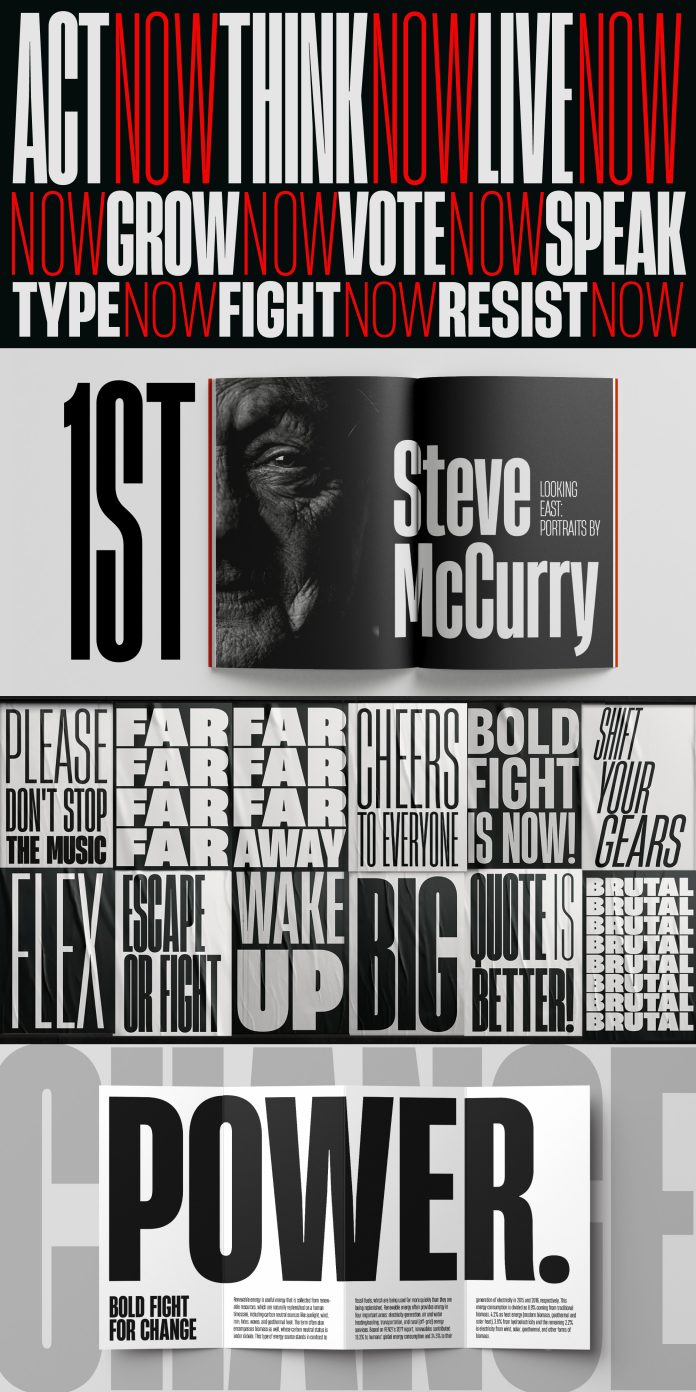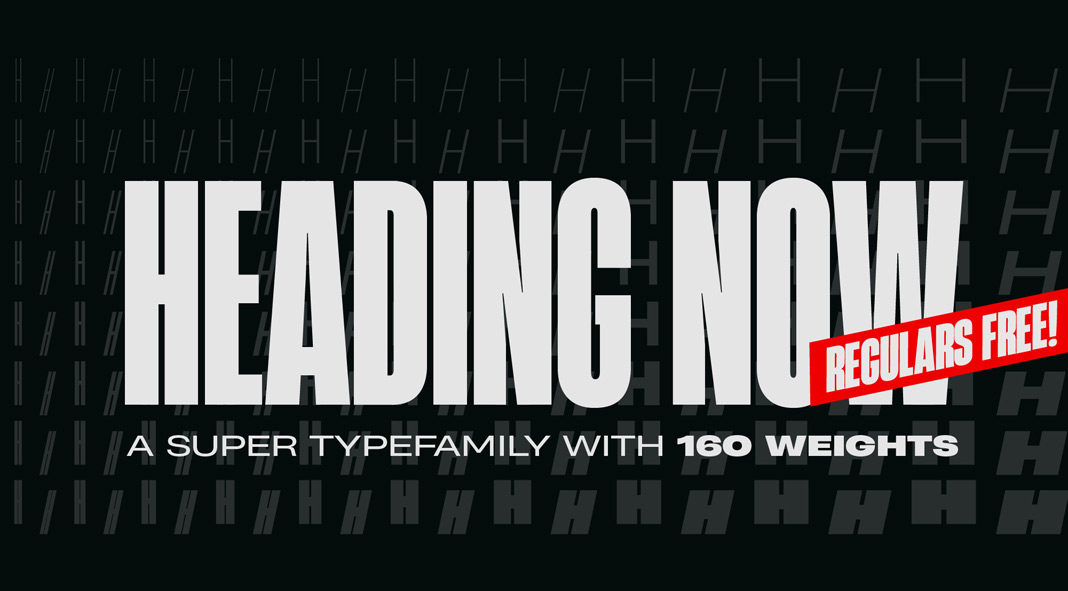
Heading Now, a new superfamily with 160 variant combinations.
Published by foundry Zetafonts in 2021, Heading Now is the new incarnation of Heading Pro. Based on the original typeface designed by Francesco Canovaro, it is now built around ten different widths ranging from ultra-compressed to ultra-wide. In addition, Heading Now comes with eight weights ranging from thin to heavy.
Heading Now is a sans serif made for use as a space-optimizing typeface for headers and titles. Its compressed widths can manage space on the printed page and on the screen while its extended width variants are ready to be used for titling where style matters more than pixel or paper economy. Heading Now’s medium width range can be used for body texts. To learn more about this gigantic font family, just click on the following link or have a look at the images below.